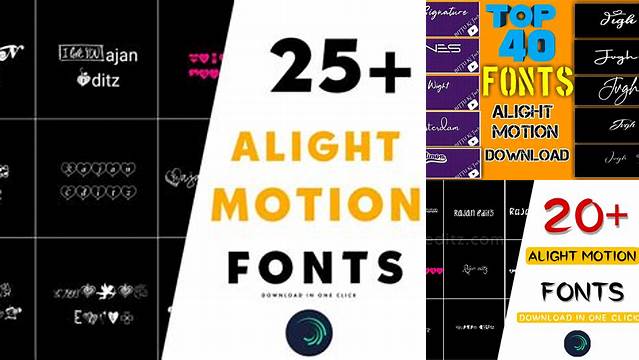
Hey guys! Are you looking to spice up your Alight Motion videos with some cool fonts? You're in the right place! This article is all about how you can get an alight motion font pack free download and take your video editing game to the next level. We'll explore everything from where to find these awesome font packs to how to install them, ensuring your videos pop and grab everyone's attention. Let's dive in and unlock a world of typography possibilities!
H2: Where to Find Amazing Alight Motion Font Packs for Free
Finding the perfect alight motion font pack free download can feel like a treasure hunt, but don't worry, I've got you covered! There are tons of websites and online communities where you can discover incredible font packs without spending a dime. One of the best places to start is, of course, the official Alight Motion website and their forums, which often have user-created packs and recommendations. Think of it as the ultimate starter kit for video editing fonts.
But that's just the tip of the iceberg. Websites dedicated to fonts, like DaFont, 1001 Fonts, and Font Squirrel, are goldmines for all sorts of typography. While these aren't exclusive to Alight Motion, many of the fonts there are compatible and can be easily downloaded and installed. Make sure you check the licenses, some fonts are free for personal use only, but there are plenty that allow commercial use, which is great if you're planning on using your videos for business.
H2: The Best Free Font Packs for Alight Motion - A Curated List
Okay, so you've found where to look for alight motion font pack free download. Now, which fonts should you grab? It's easy to get overwhelmed, so let's create a shortlist of the best free font packs to kickstart your font collection. Remember, this is just a starting point! Experimenting is key to finding what resonates with your style and the vibe of your videos. First up, we have the classic 'Roboto.' This font family is super versatile, with clean lines and excellent readability, perfect for titles, subtitles, and even body text in your videos. You can never go wrong with it; it's a staple for a reason.
Next, let's talk about 'Poppins.' This is a modern, geometric sans-serif font that offers a friendly and approachable feel. It's great for more casual videos or anything aimed at a younger audience. Then there's 'Open Sans', which is another excellent option. It's very readable at different sizes, making it a great choice for longer text blocks. For something with a bit more personality, consider 'Montserrat.' It's a stylish sans-serif inspired by the urban typography of the Montserrat neighborhood in Buenos Aires. It’s very versatile and can be used for a wide range of projects.
Finally, don't forget about handwritten fonts! They can add a personal touch to your videos. Search for options like 'Caveat' or 'Amatic SC' to give your videos a more unique, handcrafted look. Always make sure to check the license agreements for each font pack before using it, especially if you're creating videos for commercial purposes. The key is to find a variety of fonts that suit different styles and project needs. With these top-notch fonts in your arsenal, you can start crafting stunning videos that will leave viewers in awe!
H2: Step-by-Step Guide: How to Download and Install Font Packs in Alight Motion
So, you've got your alight motion font pack free download lined up? Awesome! Now, it's time to get those fonts into Alight Motion so you can start using them. The installation process is usually pretty straightforward, but it's important to follow the correct steps to avoid any headaches. First, download your chosen font pack from a reputable source, as mentioned before. Most of the time, the files will be in a .zip format. You'll need to extract these files to access the actual font files, which typically come in .ttf (TrueType Font) or .otf (OpenType Font) formats. You can use a file manager app on your device to extract the zip file. If you are on your phone, you might already have one pre-installed or download one from your respective app store.
Once you have the font files extracted, the next step is to install them in Alight Motion. Unfortunately, the official version of Alight Motion does not directly support installing fonts via file browsing or file import. The best way is to go through your system's font settings, which depends on your device and operating system. On Android, you can install fonts by copying the .ttf or .otf files to the system's font folder or using a font manager app. You can find this folder by searching on Google depending on your phone. Another great way is by using an app, such as iFont or Font Manager. This app has a user-friendly interface to install your fonts to the system. After installing the font, open the Alight Motion app, and create a new project or open an existing one. When you add a text layer, tap on the font selection, and you should see your newly installed fonts listed there. If you do not see them right away, try restarting the app or your device. Also, ensure the fonts are properly installed in your system fonts and not just the file folder.
H2: Avoiding Common Problems: Troubleshooting Font Installation Issues
Even though the installation process for an alight motion font pack free download is generally simple, you may run into a few bumps along the way. Don't worry; it's totally normal! Here’s how to troubleshoot some common font installation issues. The first thing to check is whether the font files are correctly extracted from the zip file. Make sure you have access to the .ttf or .otf files, which are the actual font files. Sometimes, people try to install the zip file itself, which won't work. Double-check this before moving on.
H2: Font Design Basics: Understanding Typography Terminology
To level up your font game when working with an alight motion font pack free download, understanding some basic typography terms is essential. This knowledge helps you make informed decisions about your fonts. First, we have the font family, which is a set of fonts that share the same design characteristics. For example, the Arial font family includes different weights, like Arial Bold, Arial Italic, and Arial Black. Serif fonts have small decorative lines, or